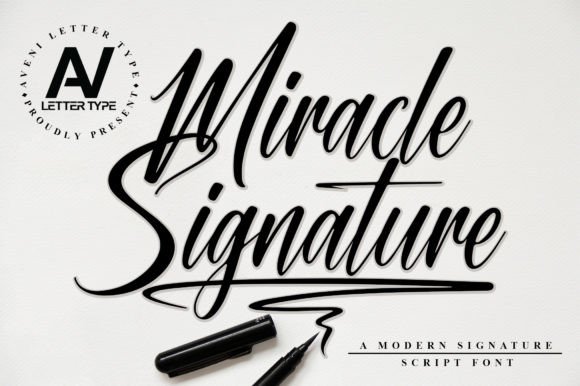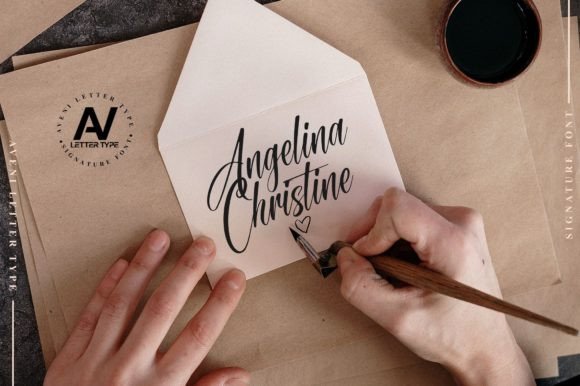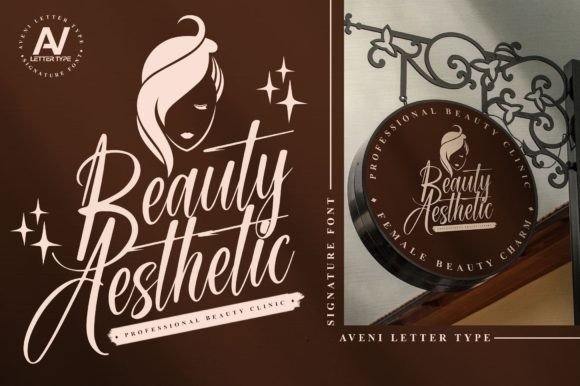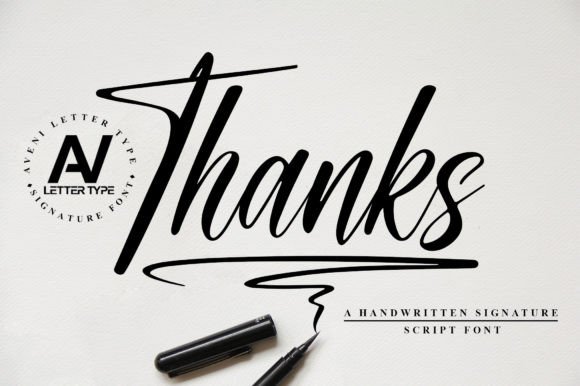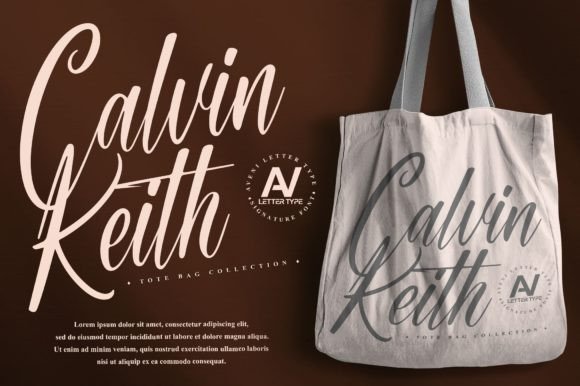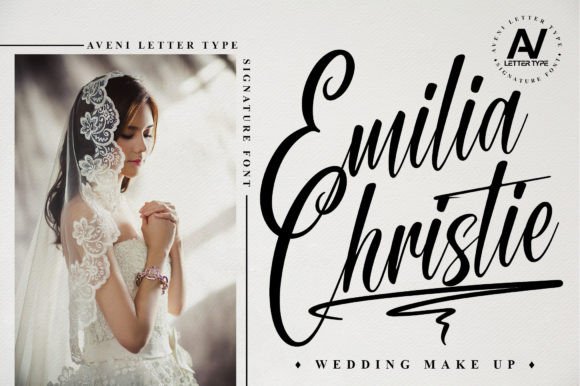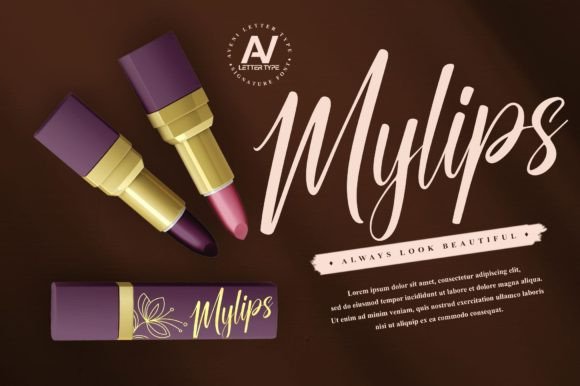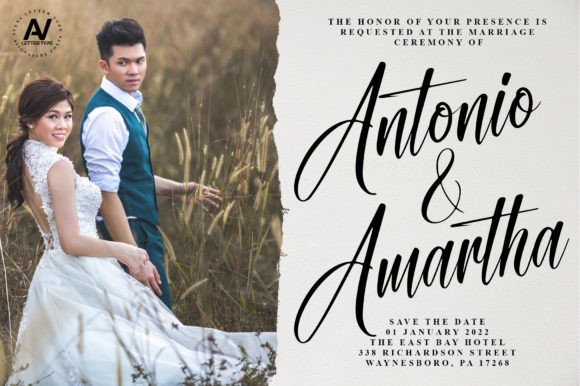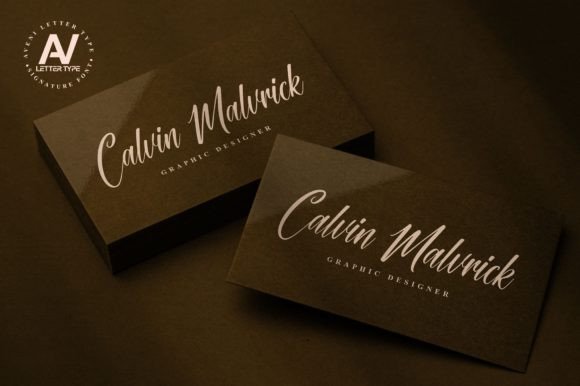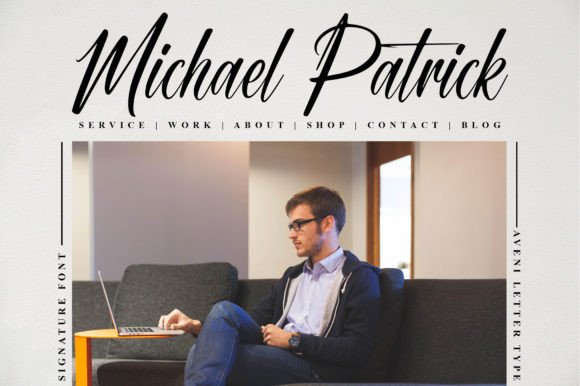
Miracle Signature Font
About Miracle Signature Font
“Miracle Signature” is more than just a font; it’s a modern signature script that exudes style and features impeccable kerning. Meticulously designed to enhance the visual appeal of your creations, this font is versatile and suitable for a wide range of ideas. Whether you’re working on apparel branding, business cards, cosmetic branding, tote bag designs, wedding invitations, product packaging, headers, posters, merchandise, social media posts, or greeting cards, “Miracle Signature” will add a touch of sophistication and creativity to your projects.
The stylish and neat kerning of “Miracle Signature” makes it stand out, ensuring that your text looks polished and professional. This font is a perfect choice for branding and design projects where a modern and elegant script is desired.
Imagine “Miracle Signature” gracing your apparel branding, adding a sleek and stylish element to your clothing tags or labels. Its modern and signature-style script brings a sense of sophistication to the world of fashion.
For business cards, “Miracle Signature” becomes a key element in creating a memorable and stylish first impression. The fluid and stylish script adds a touch of elegance to your contact information, making your business cards stand out.
In cosmetic branding, “Miracle Signature” contributes to a luxurious and modern aesthetic. Its neat kerning enhances the overall design, making it a perfect choice for beauty and cosmetic product labels.
For wedding invitations, “Miracle Signature” brings a sense of romance and elegance. Its stylish script adds a personal and sophisticated touch to your invitation designs, setting the tone for a special celebration.
Whether you’re working on tote bag branding, product packaging, headers, posters, merchandise, or social media content, “Miracle Signature” is a versatile font that elevates the visual appeal of your designs. Let this font be the creative tool that adds a modern and stylish signature touch to your diverse range of projects.